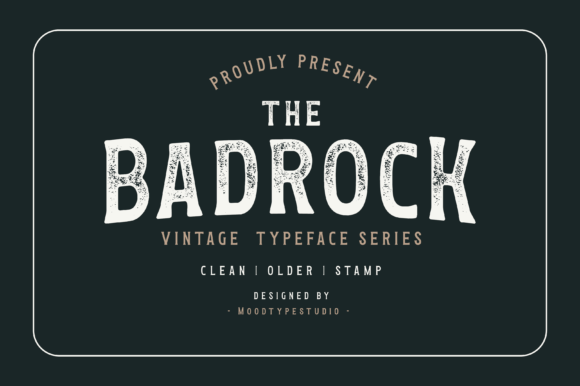
Discovering the Perfect Vintage Vibe with Badrock Font
Have you ever found yourself stuck in a creative rut, desperately searching for that one font that captures the essence of a bygone era? I know I have. It was on one such evening, rummaging through the depths of a vintage typography library, that I stumbled upon Badrock Font. Its bold and rugged letterforms immediately caught my attention, transporting me to a world of retro design and old-school charm.
Badrock Font is a vintage-style display font that’s perfect for designers looking to add a touch of authenticity to their projects. With its weathered texture and distressed edges, it exudes a sense of strength and confidence, making it ideal for posters, logos, and any project that needs a vintage twist. Whether you’re a seasoned designer or a newcomer to the world of typography, Badrock Font is a valuable addition to your toolkit.
Key Features of Badrock Font
- Unique Characteristics: The Badrock Font features a bold, rugged, and distressed design, making it perfect for creating eye-catching headlines, titles, and other attention-grabbing text elements.
- Font Style: The font has a mix of serif and sans-serif elements, giving it a unique and versatile look that can be used in a variety of design contexts.
Badrock Font Review
Badrock Font is an interesting addition to the world of typography. Here’s my take on it.
- The font’s rough, distressed aesthetic adds a unique touch to any design. It’s perfect for those who want to give their work a vintage or industrial feel.
- The Badrock Font’s bold weight options make it easy to create eye-catching headings and titles.
- The font’s consistency across different font sizes and weights is impressive, ensuring a cohesive look in your designs.
- The font may not be suitable for body text, as its roughness can make it difficult to read in large quantities.
- The font’s distressed effect can be overwhelming if used excessively. Balance is key when incorporating this font into your designs.
- The font may not be as versatile as other options, limiting its use in certain design contexts.
Overall, Badrock Font is a solid choice for designers who want to add a unique touch to their work. While it may have its limitations, it’s a great option for those who want to create eye-catching, industrial-inspired designs.
Tips for Getting the Most Out of Badrock Font
For best results, use the Badrock font in bold or italic styles to add emphasis to your text. You can also pair the font with other bold or sans-serif fonts to create a visually appealing contrast.
The Badrock font is ideal for use in posters, flyers, and other promotional materials. It’s also great for use in logos, branding, and other design projects where a bold, attention-grabbing font is needed.
Alternatives to Badrock Font
Rockwell Font
Rockwell Font is a classic serif font that is often used for body text and headlines. It has a strong, sturdy feel that works well for formal and professional designs. When to use: Formal documents, corporate materials, and designs that require a traditional look.
Comparison to Badrock Font: Rockwell Font is more traditional and less edgy than Badrock Font. While Badrock Font is ideal for bold and playful designs, Rockwell Font is better suited for formal and professional contexts.
Impact Font
Impact Font is a sans-serif font that is known for its bold and dramatic feel. It is often used for headlines and titles to add emphasis and create visual impact. When to use: Headlines, titles, and designs that require a bold and attention-grabbing look.